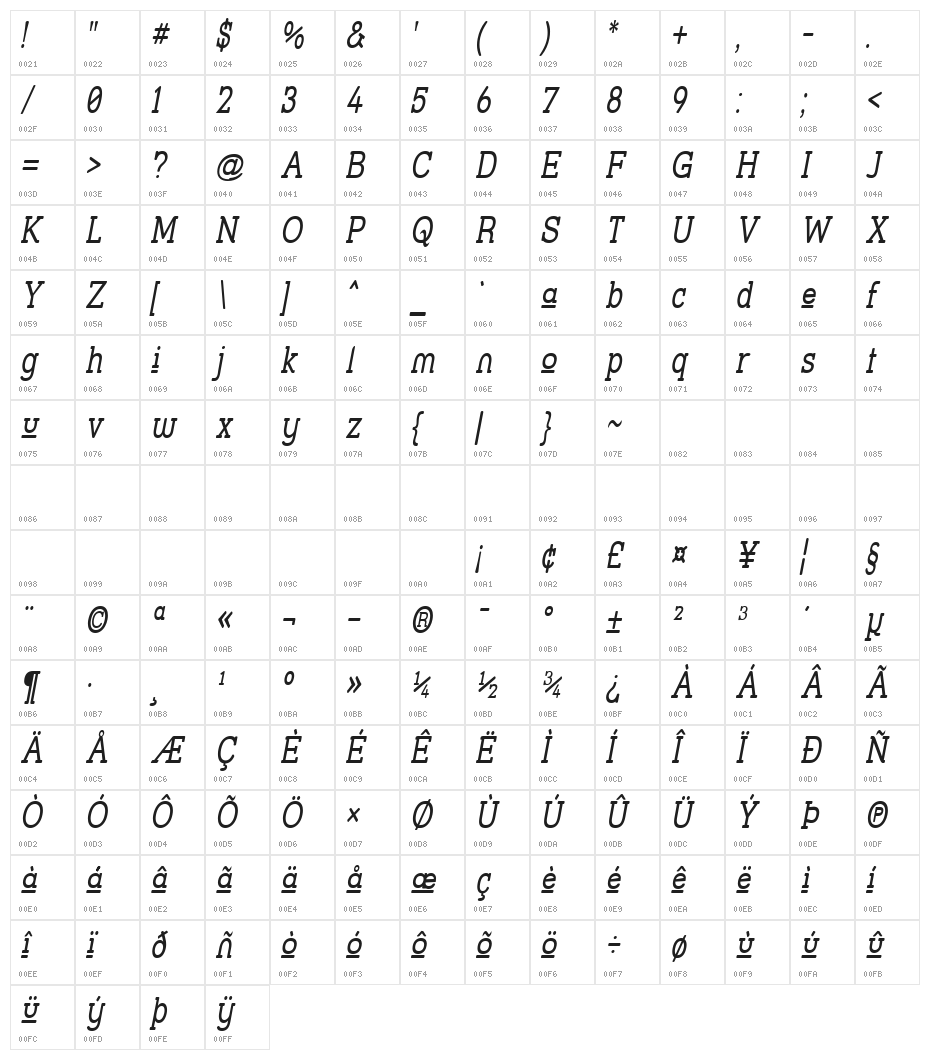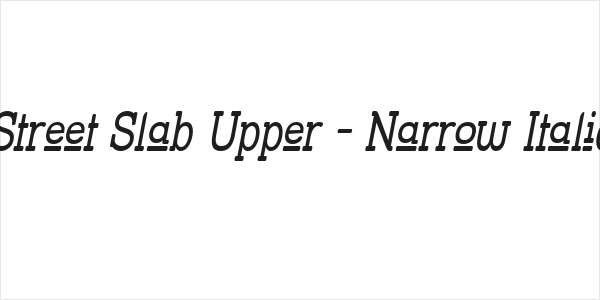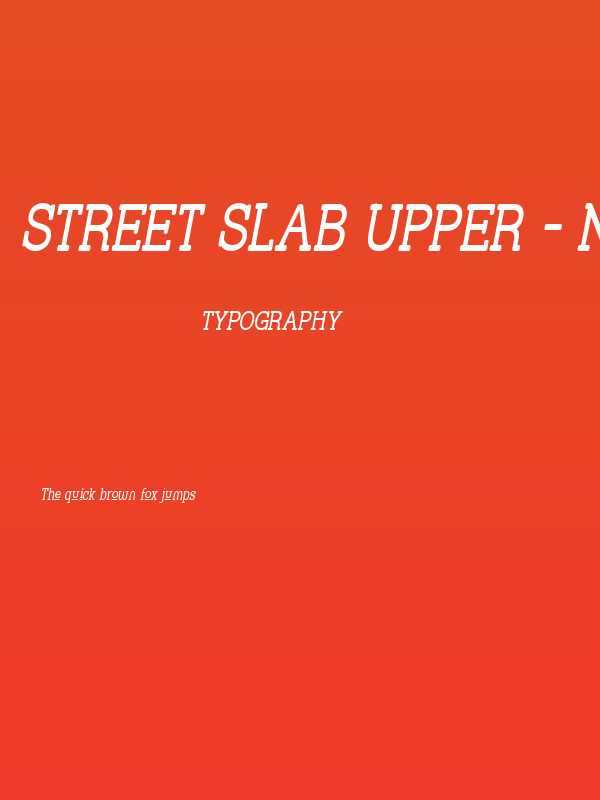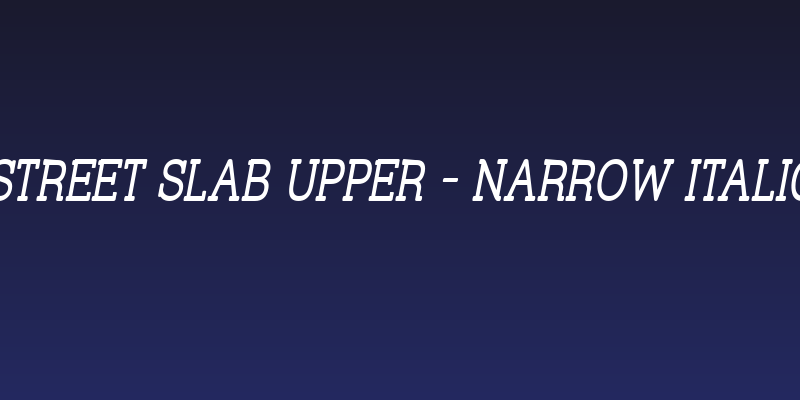
Street Slab Upper - Narrow Italic Font
Street Slab Upper - Narrow Italic Description
This font features a bold and italicized style with a narrow width, giving it a distinctive and modern appearance. The uppercase and lowercase letters are designed with a slight slant, enhancing the italic effect. The characters have a consistent stroke weight, providing a uniform look across the alphabet. The numerals are clear and legible, matching the style of the letters. Special characters are included, maintaining the same design ethos. This font's narrow and italicized form makes it suitable for dynamic and impactful text presentations.